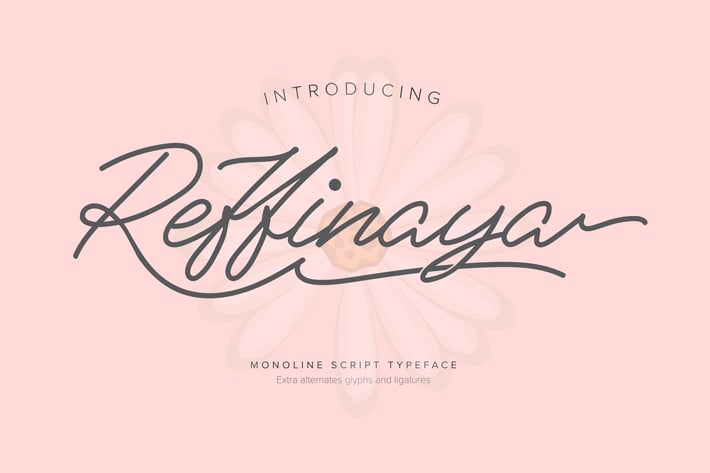
Reffinaya | Monoline Script Typeface
Reffinaya | Monoline Script Typeface with a calligraphy style, So beautiful on invitation like greeting cards, branding materials, business cards, quotes, posters, and more!